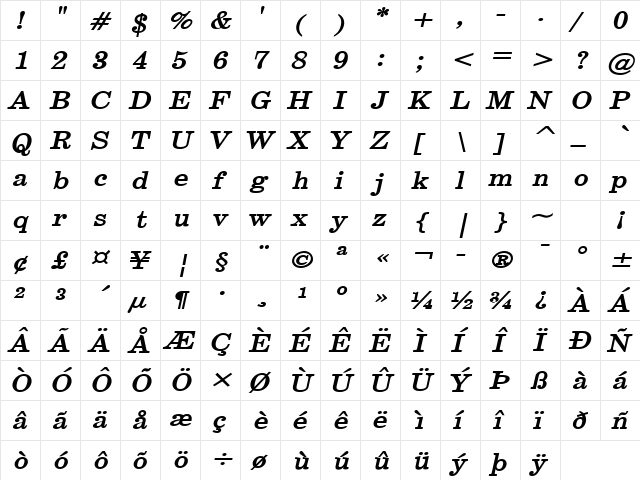
Annual-Extended Bold Italic
Design Context for Annual-Extended Typeface
Annual-Extended offers clean, dependable letterforms without strong stylistic allegiance, making it a practical choice for designers who need flexibility. The slanted form adds forward momentum and visual energy. The heavy weight commands attention and anchors typographic hierarchies.